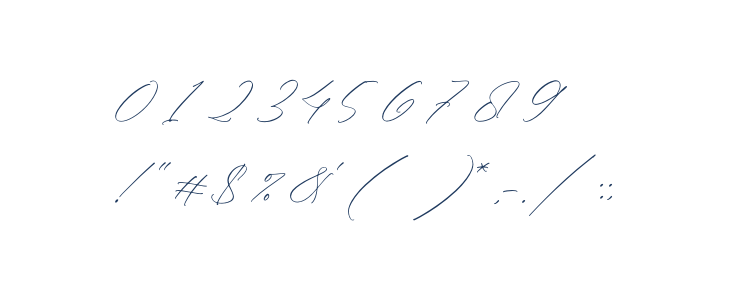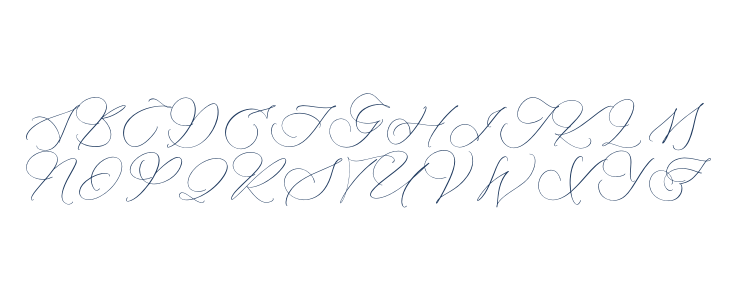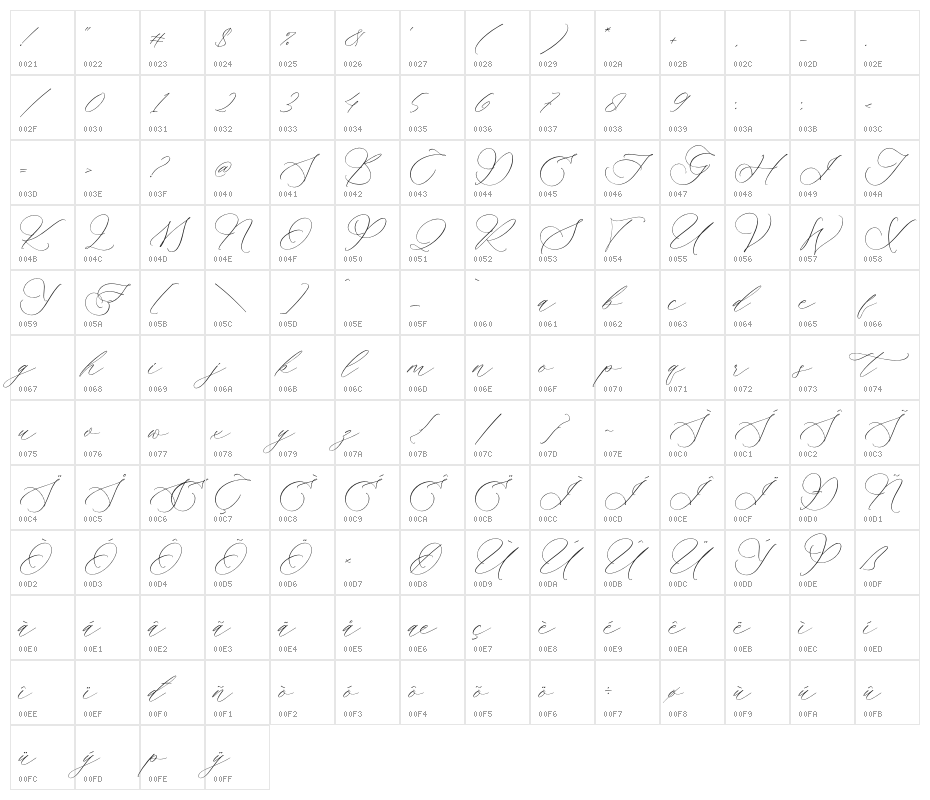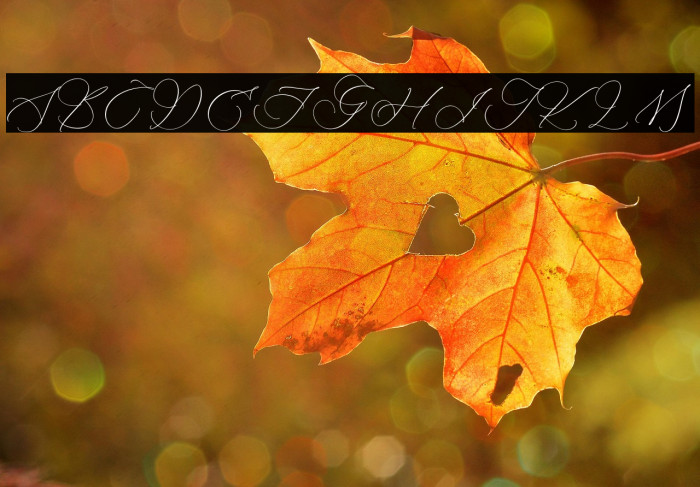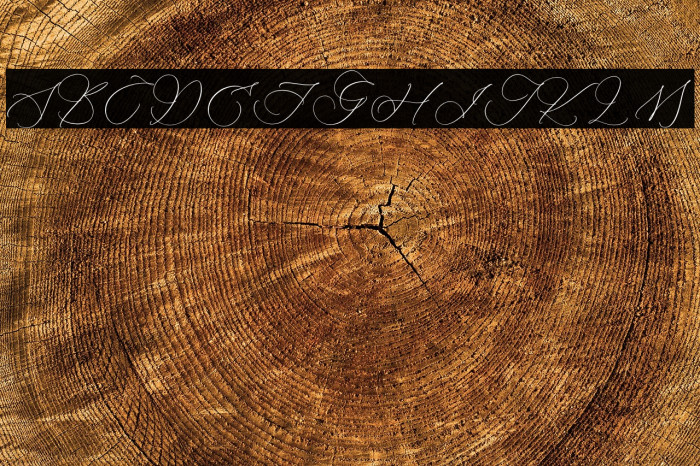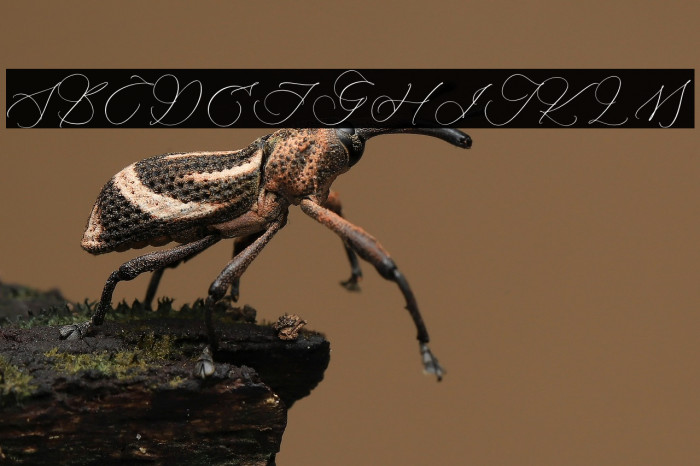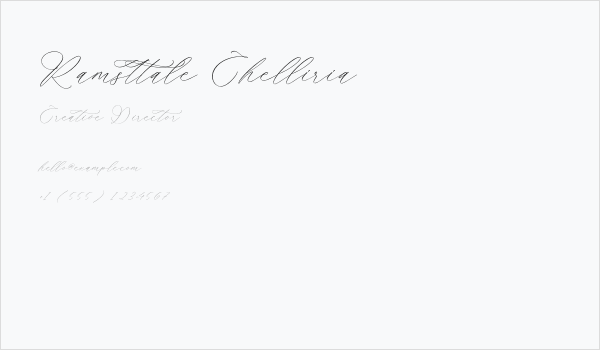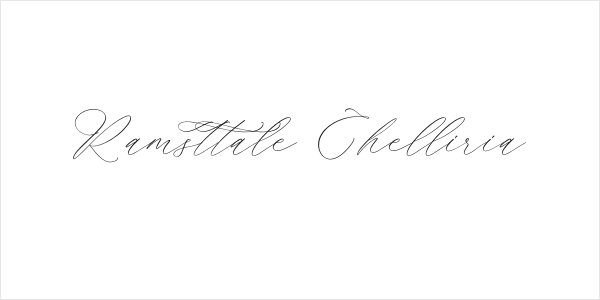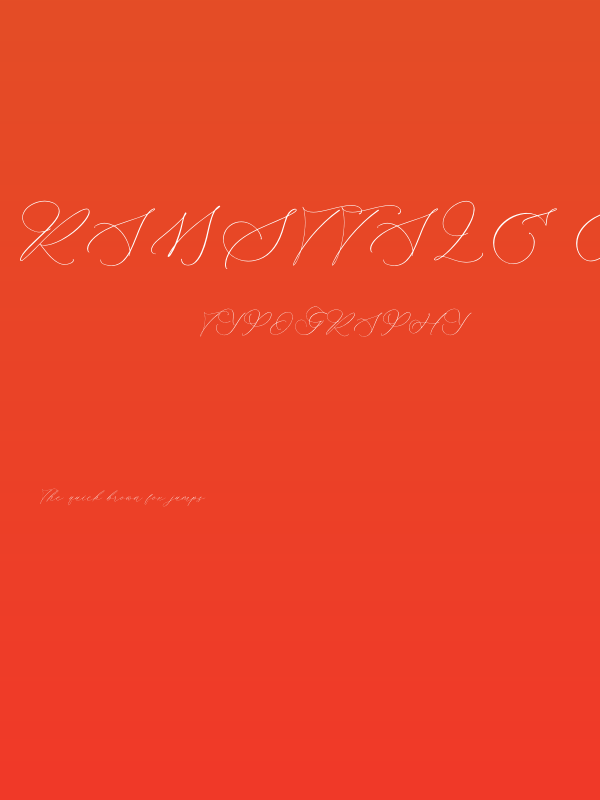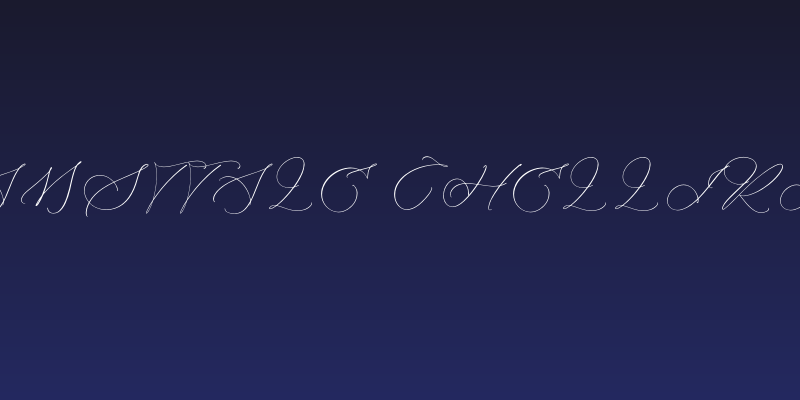
Ramsttale Chelliria Font
Ramsttale Chelliria Description
Elegant, flowing script font with delicate, thin strokes and elaborate swashes, resembling refined calligraphy. The characters are highly connected and feature a handwritten, cursive style with consistent slant and ornate flourishes.
| Overall Style | Decorative, Elegant, Handwritten |
| Use Case | Logos, Invitations, Headlines, Decorative text |
| Proposed Projects | Wedding invitations, luxury branding, elegant event signage, personal stationery, certificates. |